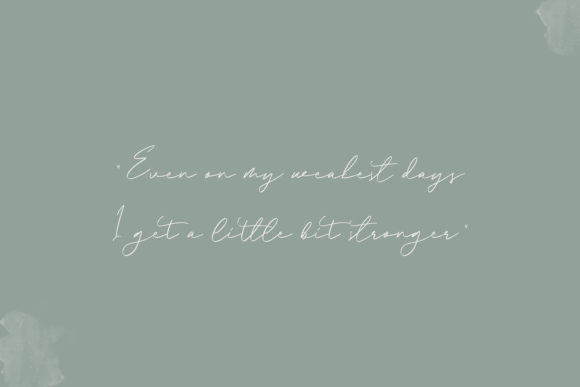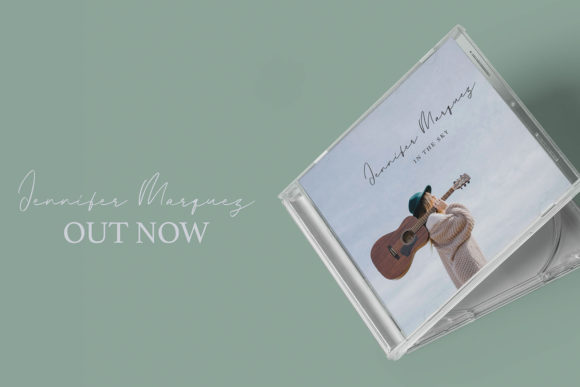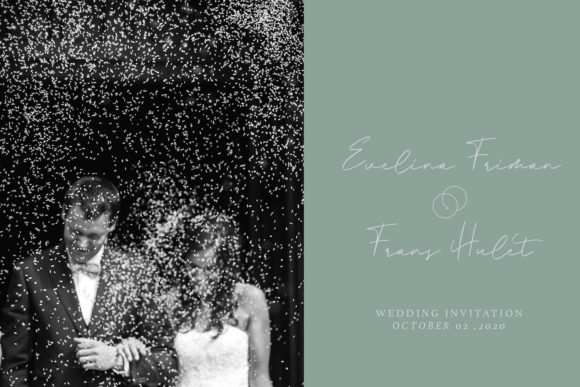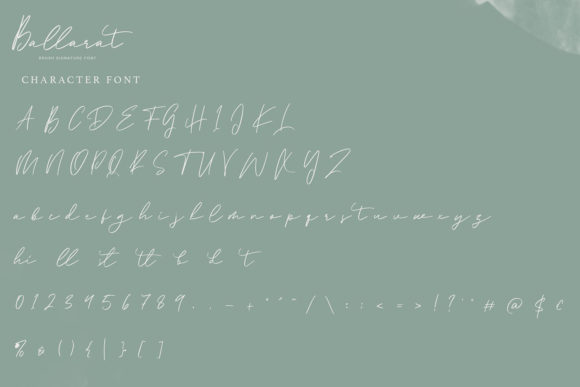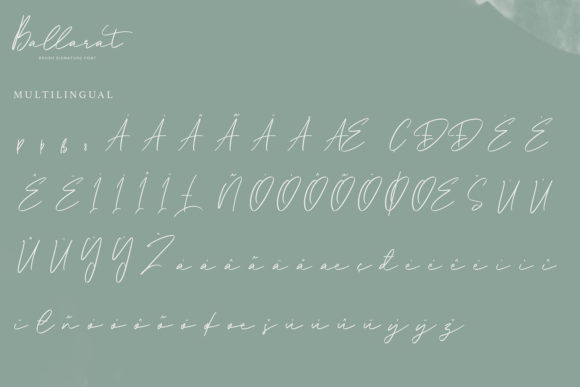
Discover the Charm of Ballarat Font: A Handwritten Gem for DIY Projects
Are you tired of using the same old fonts for your DIY projects? Look no further than the Ballarat Font, a stunning handwritten font that is sure to bring a touch of personality and whimsy to any craft. In this article, we’ll dive into the unique characteristics of the Ballarat Font, and explore how it can be used to elevate your designs and make them stand out.
The Story Behind Ballarat Font
The Ballarat Font is the result of a beautiful pairing of a brush pen and pencil, which gives it an endearing and authentic look. The font’s creator has skillfully combined these two mediums to produce a truly unique and gorgeous handwritten font. The result is a font that looks like it was written with love and care, making it perfect for DIY projects that require a personal touch.
What Makes Ballarat Font So Special?
So, what sets the Ballarat Font apart from other handwritten fonts? Here are just a few of its standout features:
- Unique blend of brush pen and pencil**: The Ballarat Font’s distinctive look is thanks to the combination of a brush pen and pencil. This blend gives the font a organic, hand-crafted feel that is hard to replicate with digital fonts alone.
- Handwritten charm**: The Ballarat Font has a lovely, handwritten quality that makes it perfect for DIY projects, such as crafting, scrapbooking, and journaling.
- Authentic look**: The font’s authentic look makes it ideal for projects that require a personal touch, such as handmade cards, invitations, and gift tags.
Using Ballarat Font in Your DIY Projects
The Ballarat Font is incredibly versatile and can be used in a wide range of DIY projects. Here are just a few ideas to get you started:
- Crafting**: Use the Ballarat Font to add a personal touch to your crafting projects, such as knitting patterns, sewing projects, and paper crafts.
- Scrapbooking**: The Ballarat Font is perfect for scrapbooking, as it adds a beautiful, handwritten element to your pages.
- Journaling**: Use the Ballarat Font to create beautiful, handwritten journal pages that are perfect for recording your thoughts, goals, and memories.
- Handmade cards and invitations**: The Ballarat Font is ideal for creating handmade cards and invitations that are truly special.
Tips for Getting the Most Out of Ballarat Font
Here are a few tips for getting the most out of the Ballarat Font:
- Experiment with different colors**: The Ballarat Font looks great in a variety of colors, so don’t be afraid to experiment and find the perfect hue for your project.
- Mix and match with other fonts**: The Ballarat Font pairs well with other fonts, so try mixing and matching it with different fonts to create a unique look.
- Use it for headings and titles**: The Ballarat Font is perfect for headings and titles, as it adds a touch of personality and whimsy to your project.
The Ballarat Font is a truly unique and gorgeous handwritten font that is perfect for DIY projects. Its distinctive look, which is the result of a stunning pairing of a brush pen and pencil, makes it incredibly endearing and authentic. Whether you’re a designer, crafter, or simply someone who loves to DIY, the Ballarat Font is sure to become a favorite. So why not give it a try and see how it can bring your projects to life?